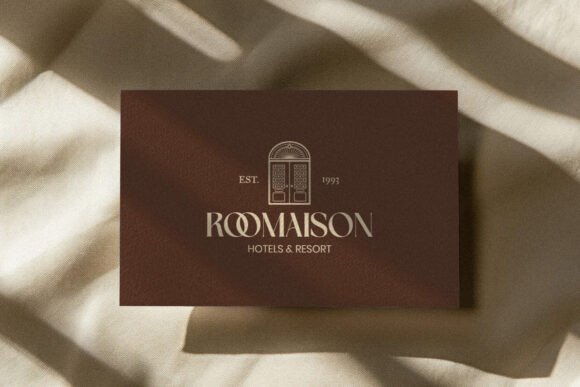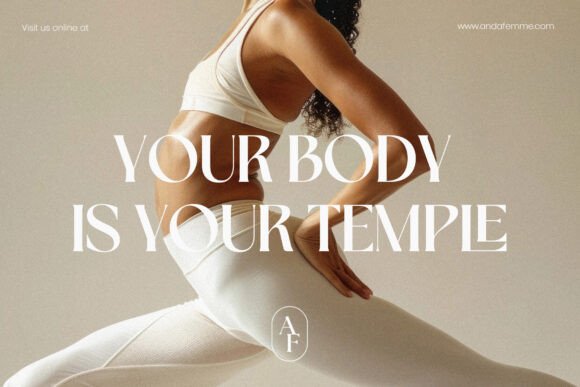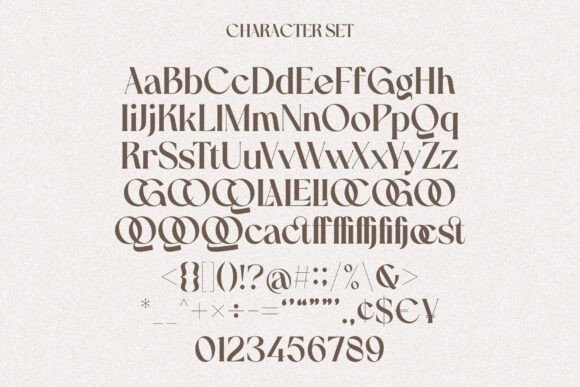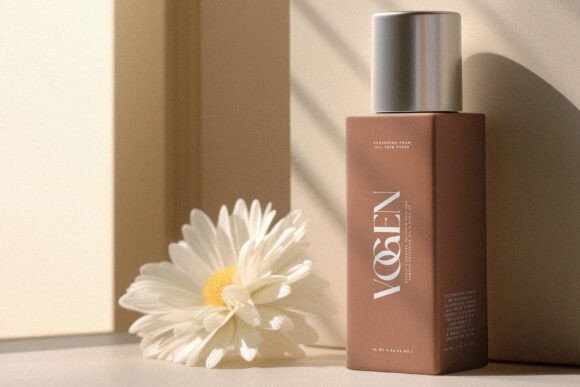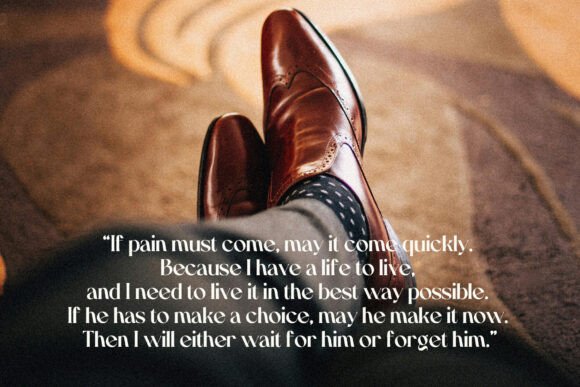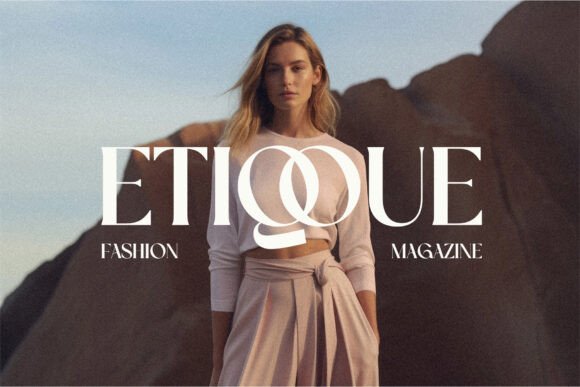
Introducing Bestari Font: The Ultimate Choice for Elegant and Versatile Designs
In the world of design, fonts play a crucial role in conveying the message and aesthetic of a project. For designers and crafters looking for a font that embodies elegance and versatility, Bestari Font is an excellent choice. This minimalist and elegant serif font is perfect for a wide range of applications, from branding projects and logos to social media posts, advertisements, and more.
What Makes Bestari Font Stand Out?
Bestari Font is designed with simplicity and sophistication in mind. Its clean lines and classic serif structure make it both timeless and trendy. The font’s minimalist approach ensures that it remains legible and stylish across various mediums, making it an ideal choice for designers who want to create a lasting impression.
One of the key features of Bestari Font is its versatility. Whether you’re working on a branding project, creating a logo, or designing social media posts, this font adapts seamlessly to different contexts. Its elegance shines through in every application, adding a touch of refinement to your designs.
Uses of Bestari Font
The possibilities with Bestari Font are endless. Here are some of the many ways you can use this versatile font:
- Branding Projects: Create a cohesive and sophisticated brand identity with Bestari Font. Its elegant design ensures that your brand stands out and communicates professionalism.
- Logos: Design memorable and impactful logos that leave a lasting impression on your audience. Bestari Font’s classic serif structure makes it perfect for logotypes.
- Social Media Posts: Elevate your social media presence with stylish and engaging posts. Bestari Font’s readability and aesthetic appeal make it ideal for captions, quotes, and promotional content.
- Advertisements: Grab attention and convey your message effectively with Bestari Font. Its elegant design ensures that your ads stand out in a crowded digital landscape.
- Labels and Product Packaging: Add a touch of sophistication to your product packaging with Bestari Font. Its minimalist approach ensures that your labels and packaging designs are both stylish and informative.
- Photography: Use Bestari Font to create stunning watermarks or overlays for your photos. Its elegant design complements visual content without overpowering it.
- Wedding Designs: Create beautiful and memorable wedding designs, including invitations, programs, and place cards, with Bestari Font’s elegant and refined aesthetic.
- Invitations and Product Designs: Design eye-catching invitations and product designs that reflect your brand’s personality. Bestari Font’s versatility ensures that your creations are both stylish and effective.
- Stationery: Elevate your stationery designs, including business cards, letterheads, and notebooks, with Bestari Font’s classic and sophisticated look.
Why Choose Bestari Font?
Bestari Font offers a unique combination of elegance, versatility, and readability. Here are some reasons why designers and crafters prefer Bestari Font:
- Elegant Design: Bestari Font’s minimalist and serif design makes it perfect for creating sophisticated and stylish designs.
- Versatility: Use Bestari Font across various mediums and applications, from digital projects to print materials.
- Readability: Bestari Font’s clean lines and classic structure ensure that your text remains legible and easy to read.
- Timeless Appeal: Bestari Font’s classic design ensures that your projects remain relevant and stylish for years to come.
Bestari Font is an excellent choice for designers and crafters looking for a versatile and elegant font. Its minimalist and serif design makes it perfect for a wide range of applications, from branding projects and logos to social media posts and product packaging. With Bestari Font, you can create stunning designs that reflect your brand’s personality and aesthetic. Whether you’re working on a digital project or a print material, Bestari Font is the ultimate choice for elegant and versatile designs.